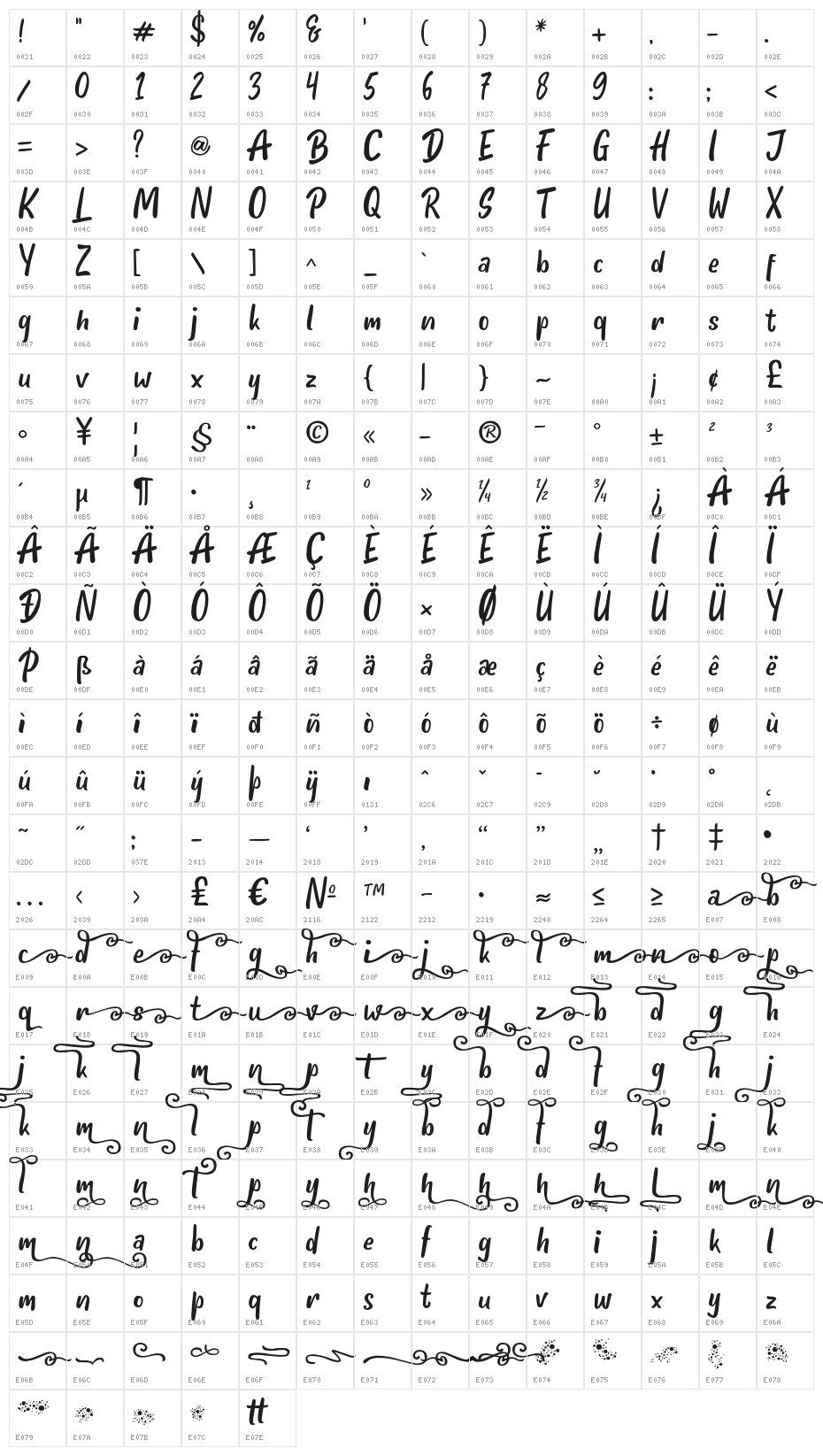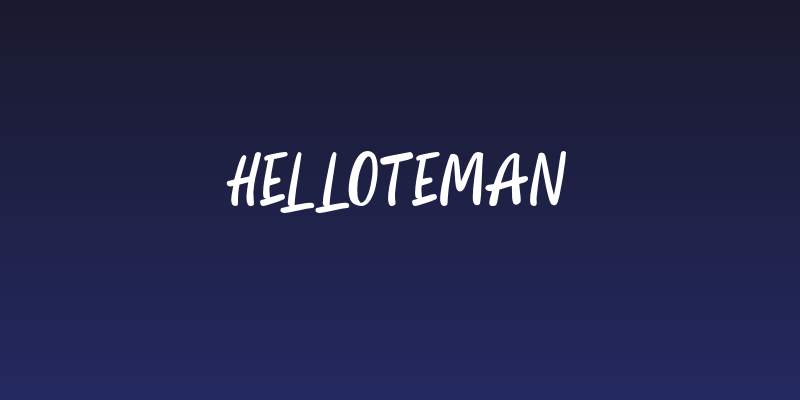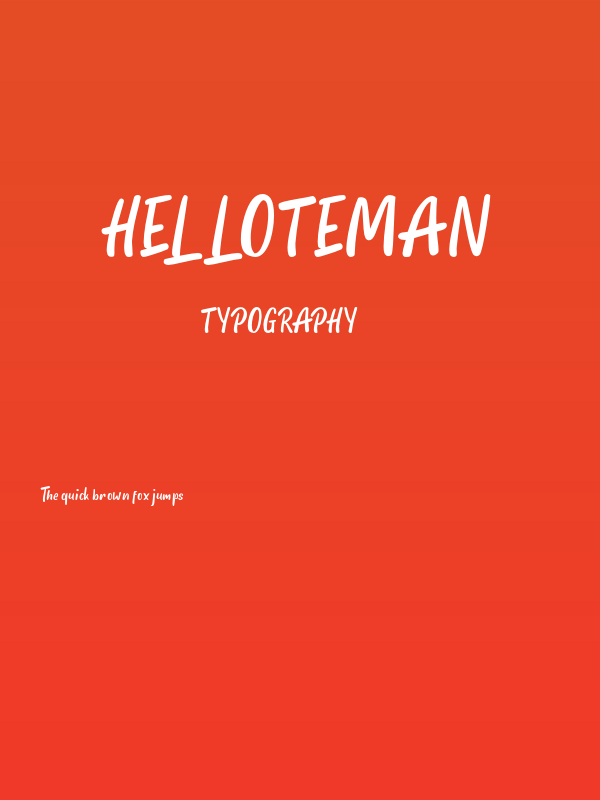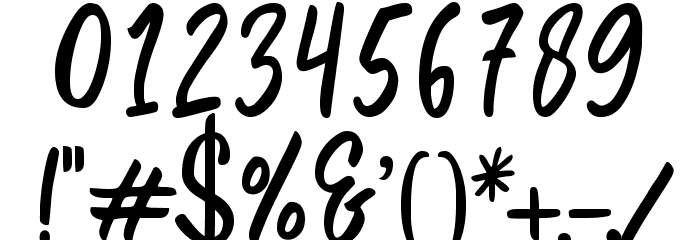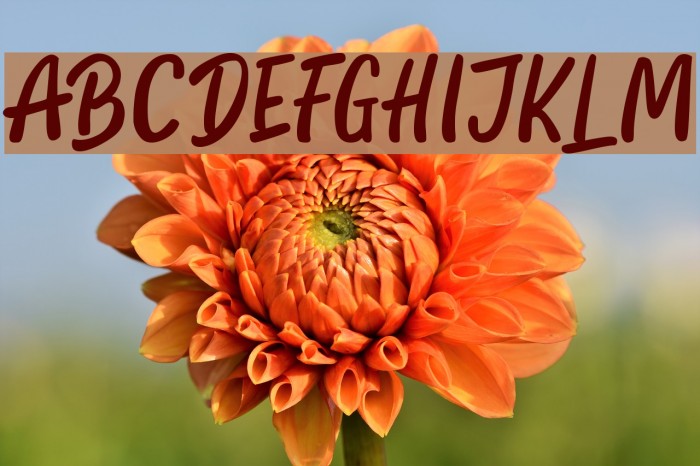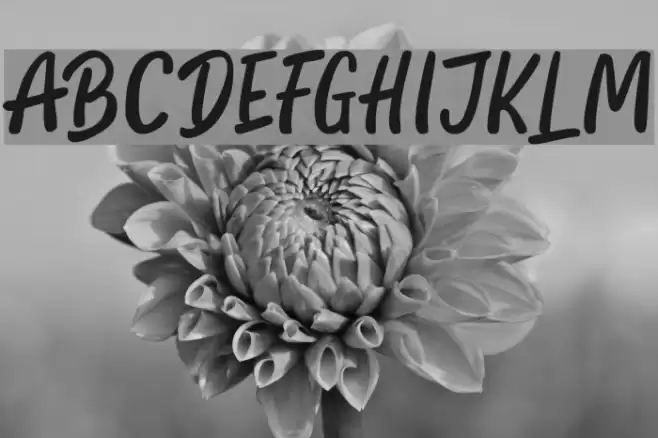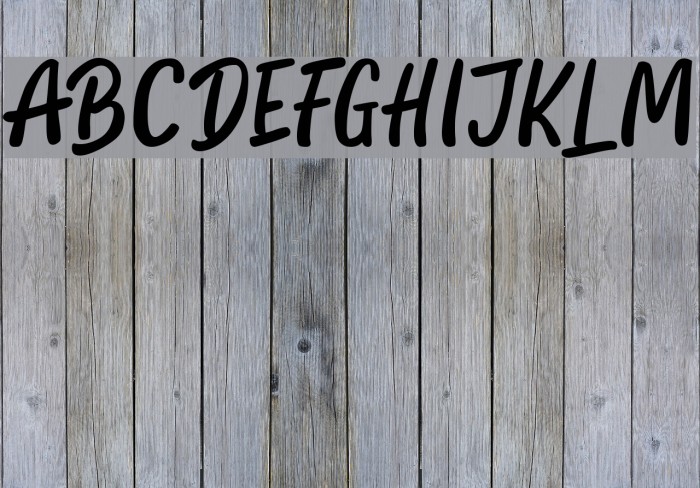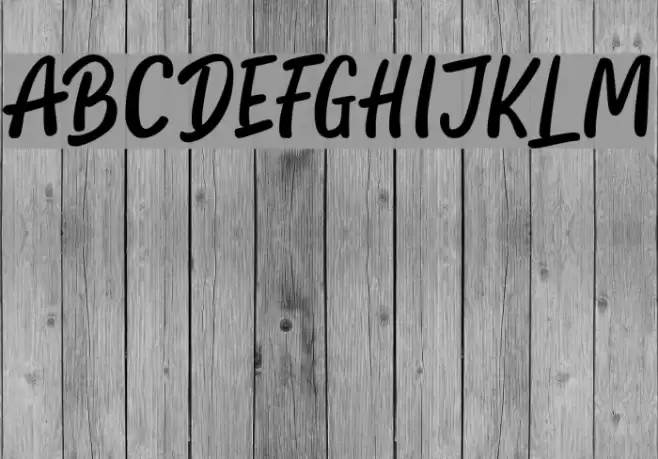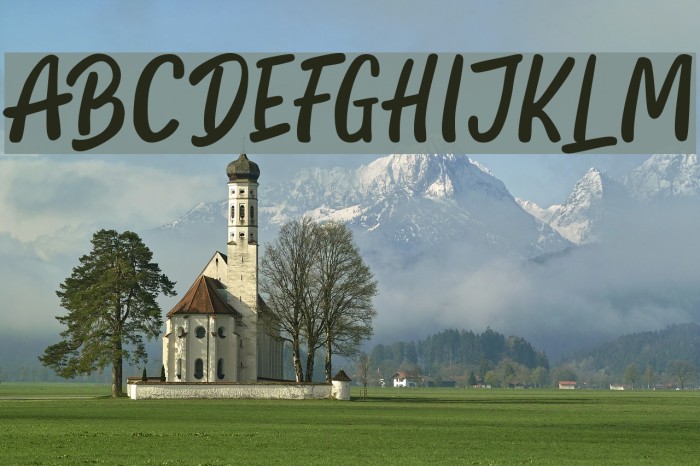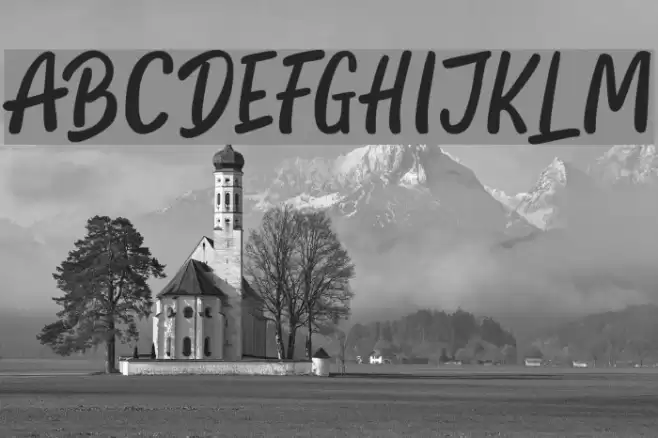
HelloTeman Font
| Estilo geral | Casual, Playful |
| Caso de uso | Headlines, Logos, Invitations |
| Projetos propostos | Ideal for greeting cards, invitations, posters, and branding materials that seek a personal and friendly vibe. |